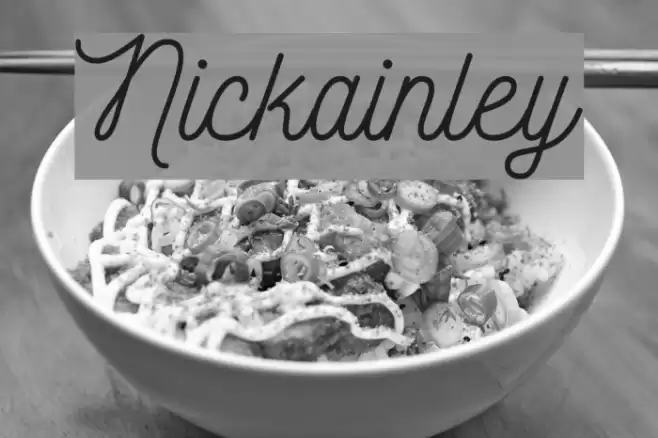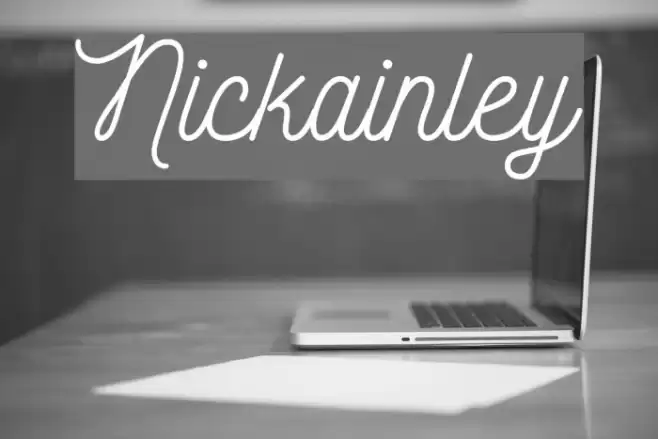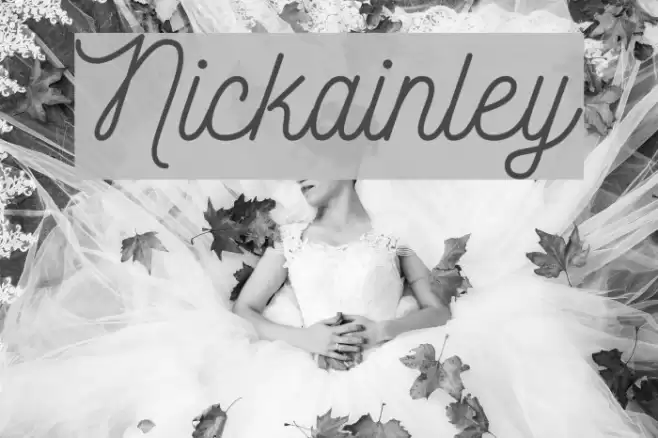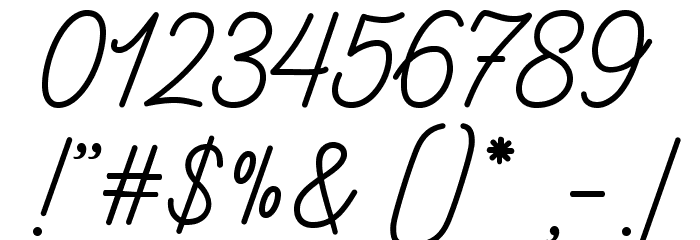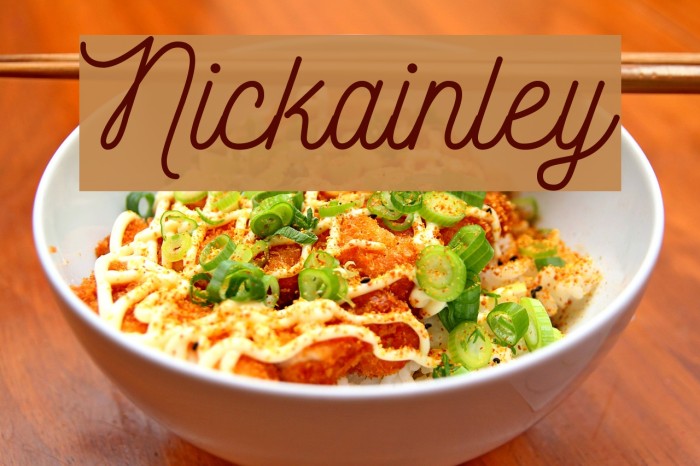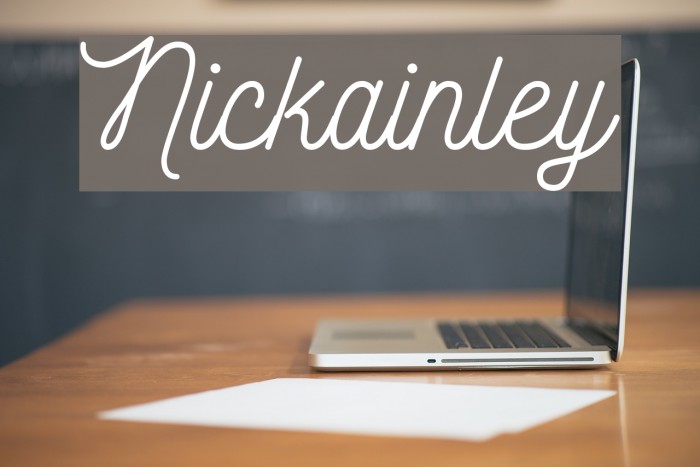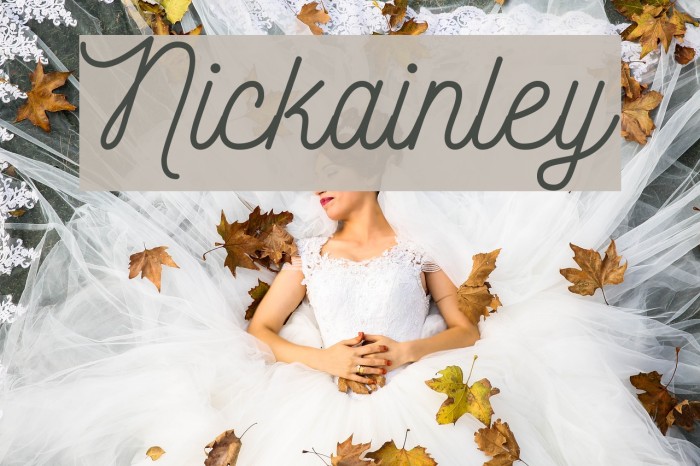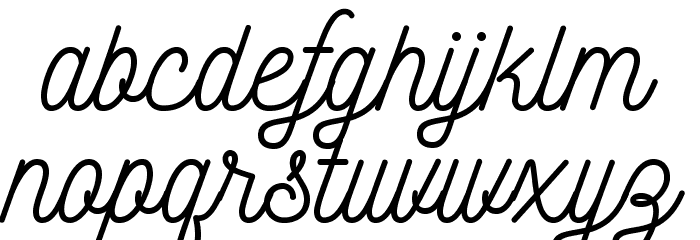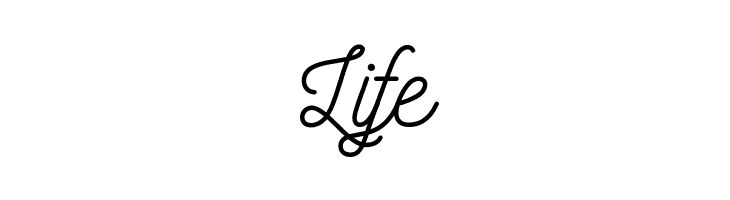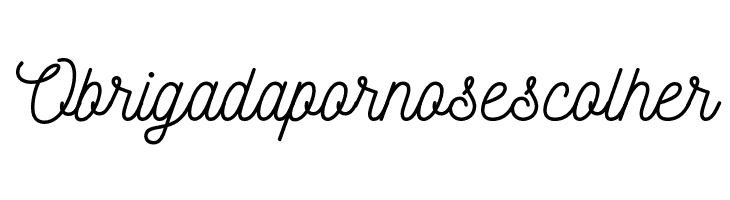
Nickainley Font
Nickainley Description
This font features a smooth, flowing script style that mimics elegant handwriting. The characters are connected, giving it a cohesive and continuous appearance. The uppercase letters are slightly more ornate, with subtle flourishes, while the lowercase letters maintain a consistent, rounded form. The numerals are clear and legible, complementing the overall cursive style. Special characters are seamlessly integrated, maintaining the fluidity of the script. This font exudes a sense of sophistication and charm, making it suitable for projects that require a personal touch.
A smooth, flowing script font with elegant, connected characters from Uncategorized fonts.
- Proposed Projects: Ideal for wedding invitations, greeting cards, personal branding, and elegant packaging.
- Overall Style: Elegant
- Use Case: Logos, Invitations, Personal Branding